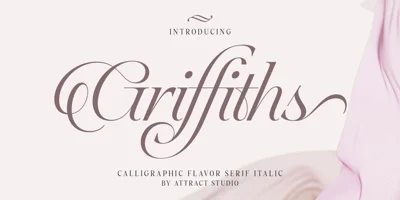
Griffiths Font
If you're searching for a unique and stylish typeface to enhance your design projects, Griffiths Font is the perfect choice. This elegant font offers a modern yet timeless aesthetic, making it ideal for branding, logos, invitations, and more. With its clean lines and versatile design, Griffiths Font ensures readability while adding a touch of sophistication.
Why Choose Griffiths Font?
Griffiths Font stands out for its balanced proportions and smooth curves, making it suitable for both digital and print media. Whether you're designing a website, creating social media graphics, or working on a print campaign, this font delivers exceptional performance. Its legibility ensures that your message remains clear, while its stylish flair adds a professional edge.